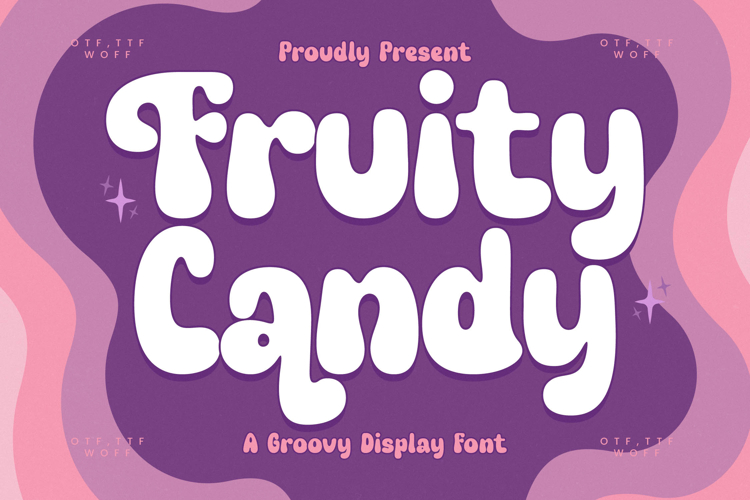
Fruity Candy - Groovy Display Font
Fruity Candy is a groovy display font that bursts with playfulness, sweetness, and retro charm. Its soft, rounded letterforms and chunky proportions create a fun and approachable personality that immediately draws attention while radiating warmth. Designed to capture the essence of carefree joy, Fruity Candy is perfect for projects that aim to be vibrant, friendly, and full of character. With its nostalgic yet modern feel, this font brings a unique twist that makes designs stand out in both print and digital spaces.
This font excels in headlines, where its bold, bubbly shapes deliver maximum impact across posters, flyers, and digital banners. It is especially suited for children’s products, candy packaging, and playful branding, where typography must embody energy and happiness. Fruity Candy also shines in event promotions and invitations, adding a groovy retro flair that makes designs feel lively and unforgettable.
In advertising and social media graphics, Fruity Candy enhances campaigns with its cheerful style, ensuring content feels both eye-catching and approachable. Its unique curves and bold weight make it excellent for logo design, merchandise, and lifestyle products, creating memorable identities with a friendly, groovy aesthetic.
Fruity Candy adapts seamlessly to digital platforms, from web headers to app graphics, bringing personality and fun to every layout. Its versatility ensures it can transition effortlessly from playful children’s projects to nostalgic retro-inspired branding.
Ultimately, Fruity Candy is more than just a typeface—it is a design companion for joy, play, and creativity. Whether used for headlines, packaging, branding, advertising, or event design, it transforms words into colorful, fun, and groovy visual statements.